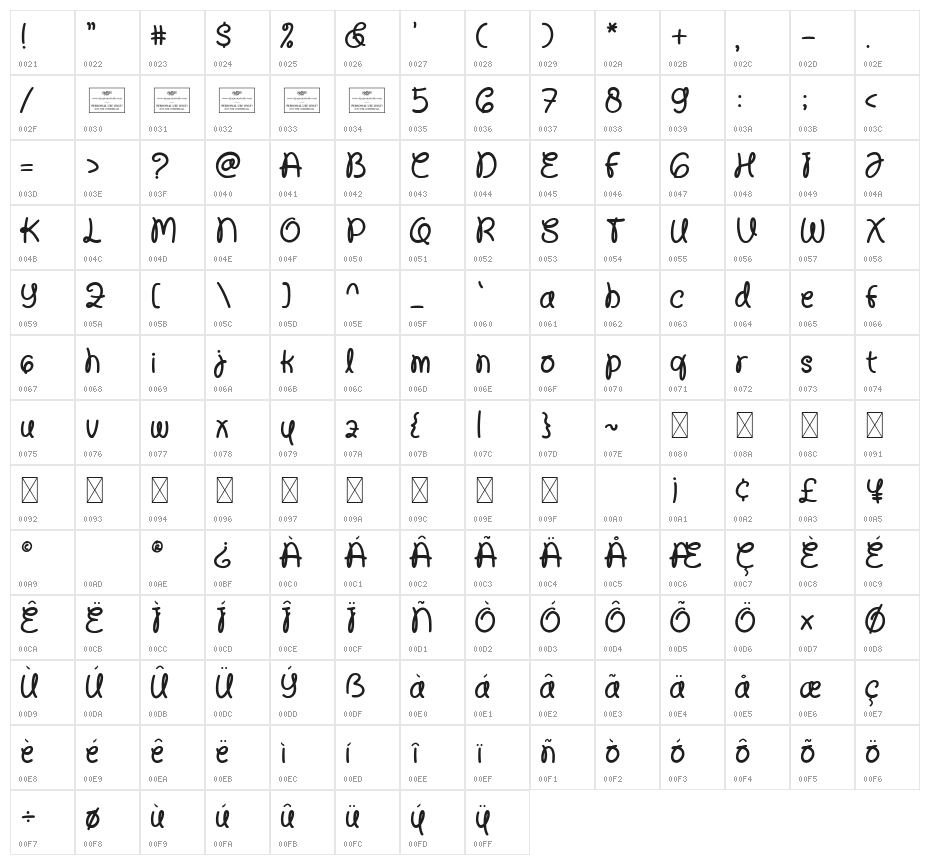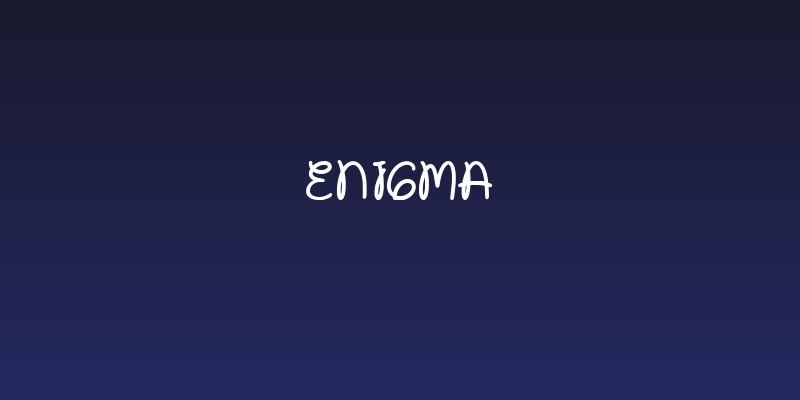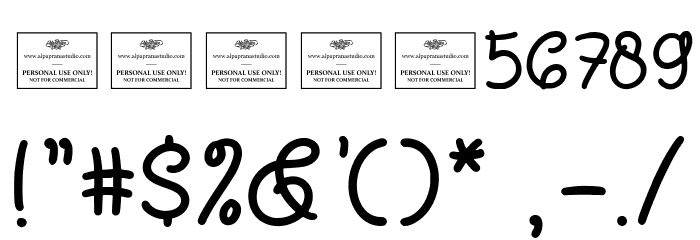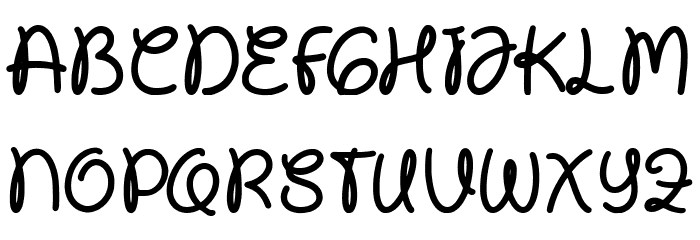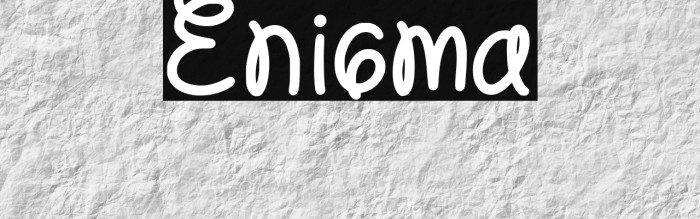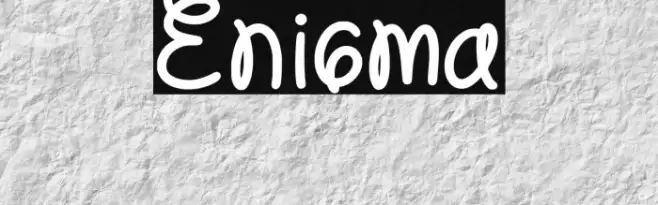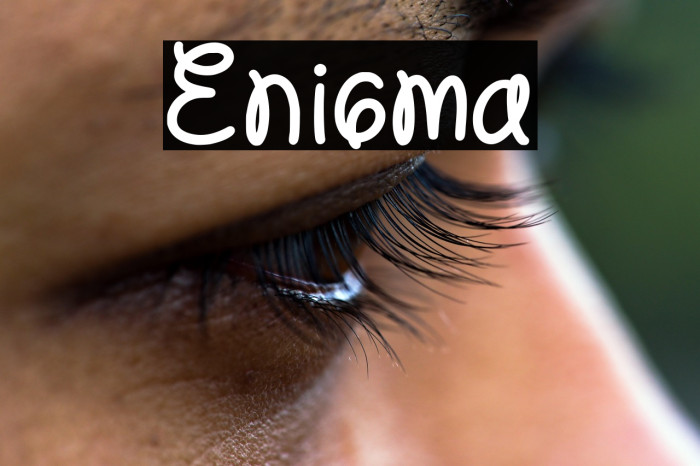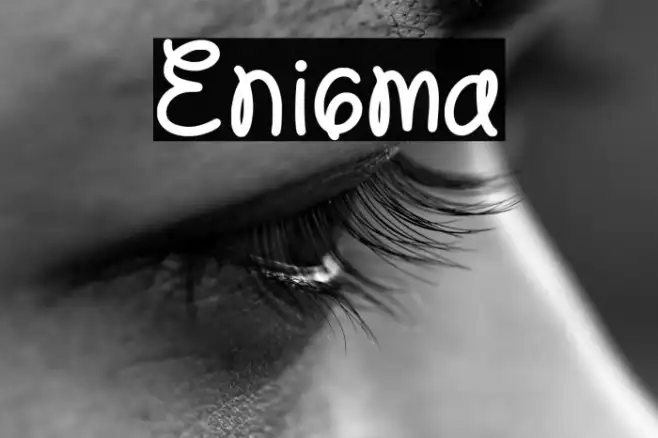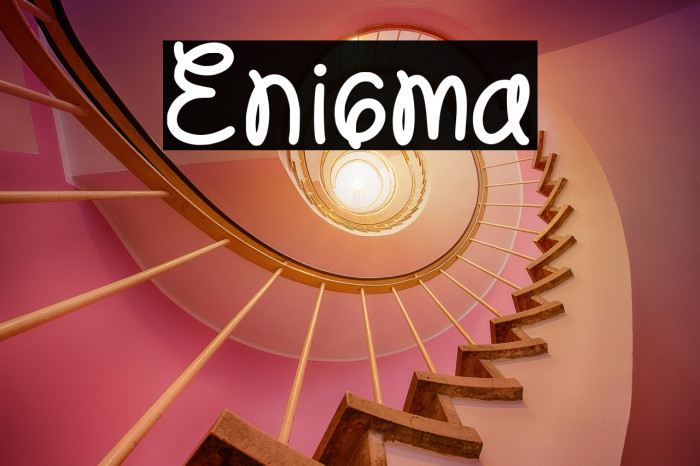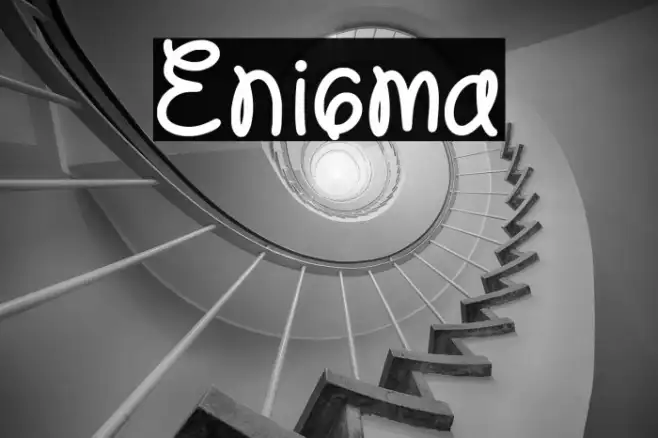
Enigma Font
Enigma Description
This font features a playful and whimsical script style with a handwritten appearance. The letters are characterized by their rounded, flowing forms and consistent stroke width, giving it a casual and friendly look. The uppercase and lowercase letters maintain a cohesive style, with slight variations in the curves and loops that add to its charm. The numerals and special characters are designed to match the overall aesthetic, ensuring a harmonious appearance across all text. This font is ideal for projects that require a personal touch, such as invitations, greeting cards, or creative branding.
| Overall Style | Playful, Casual |
| Proposed Projects | Ideal for invitations, greeting cards, creative branding, and personal projects. |